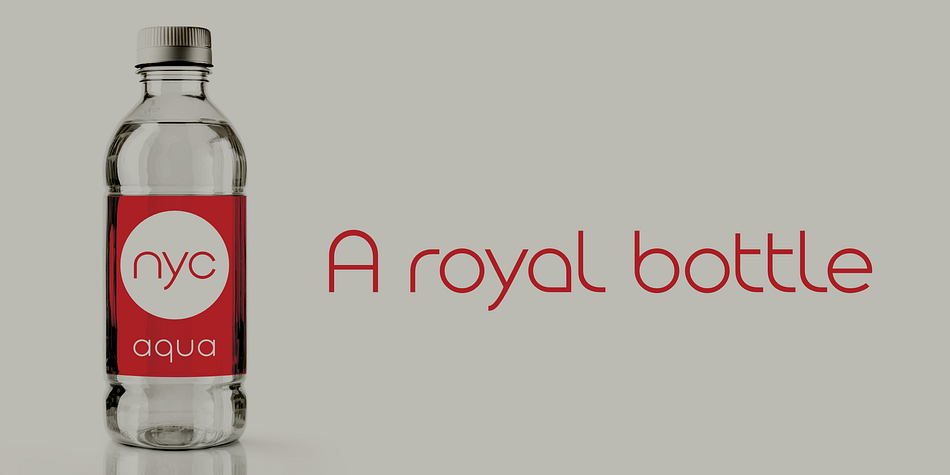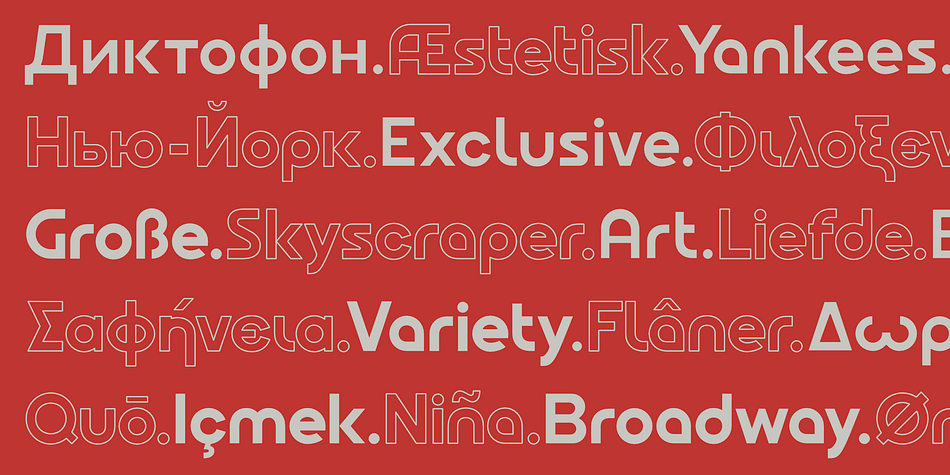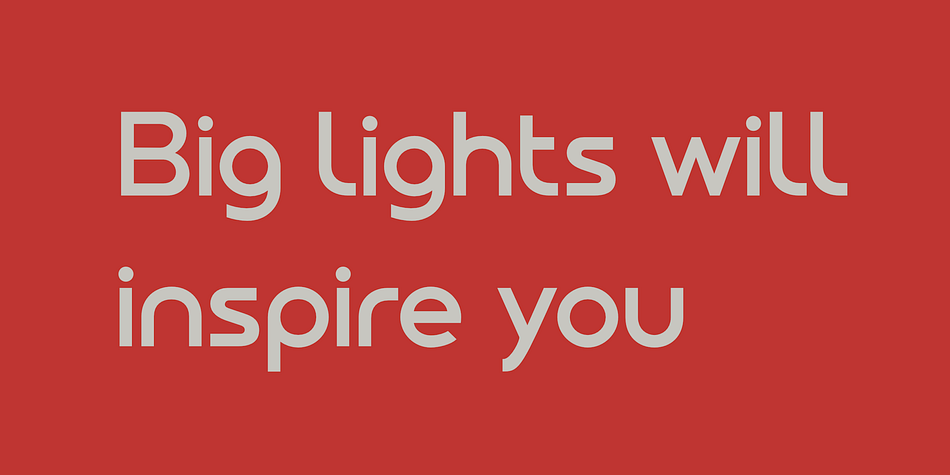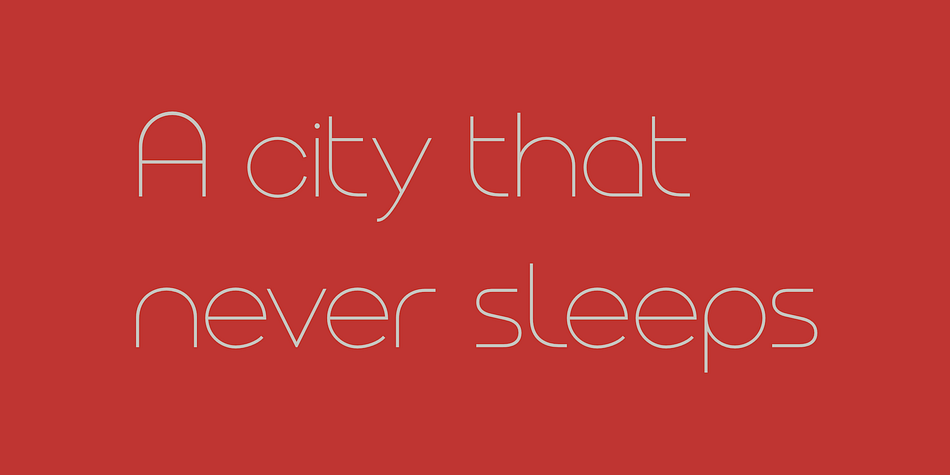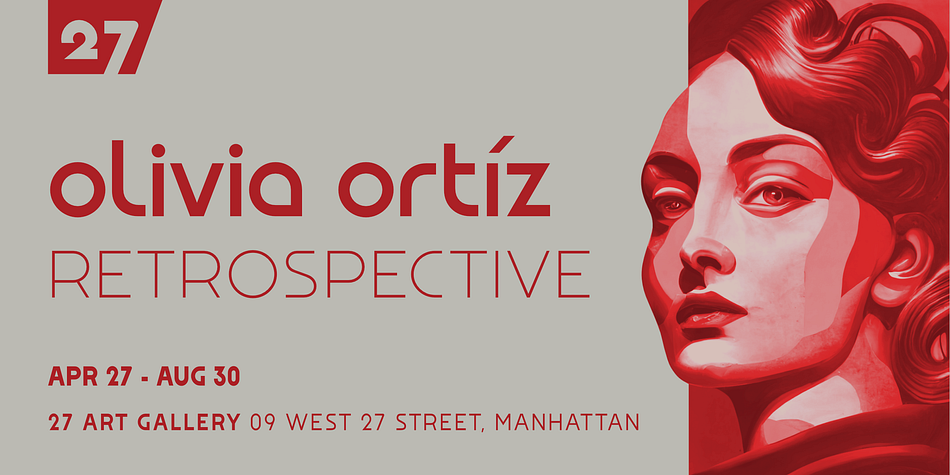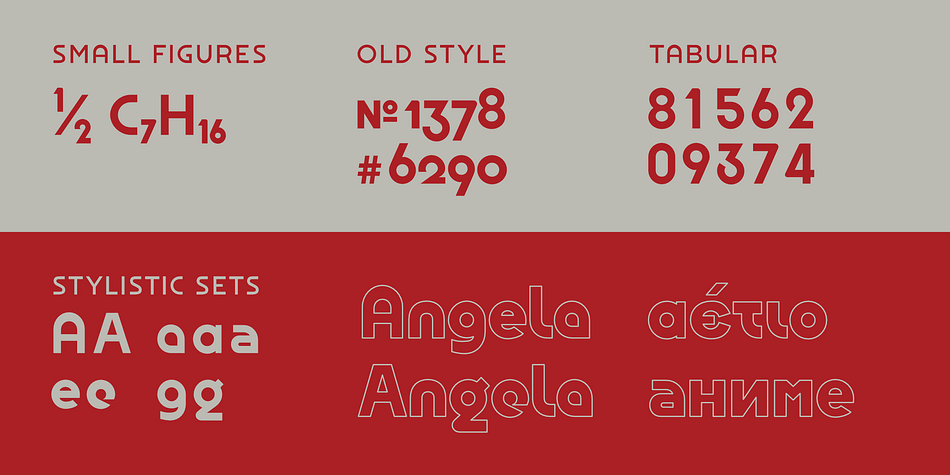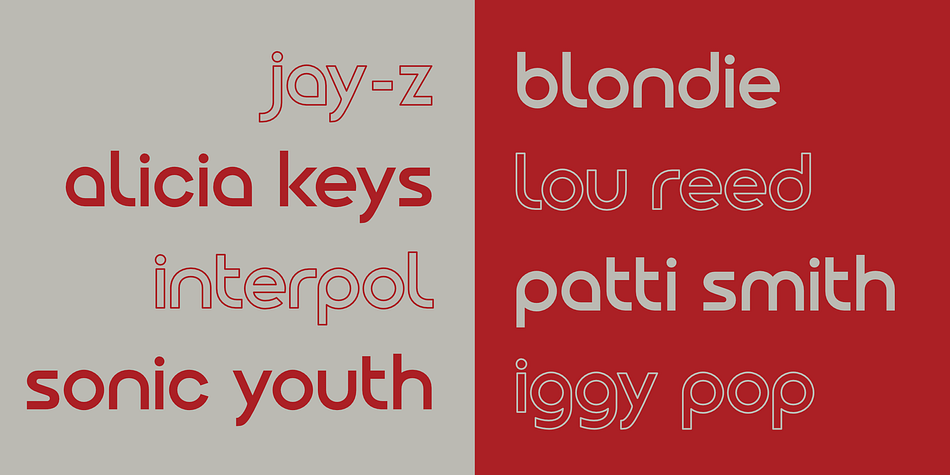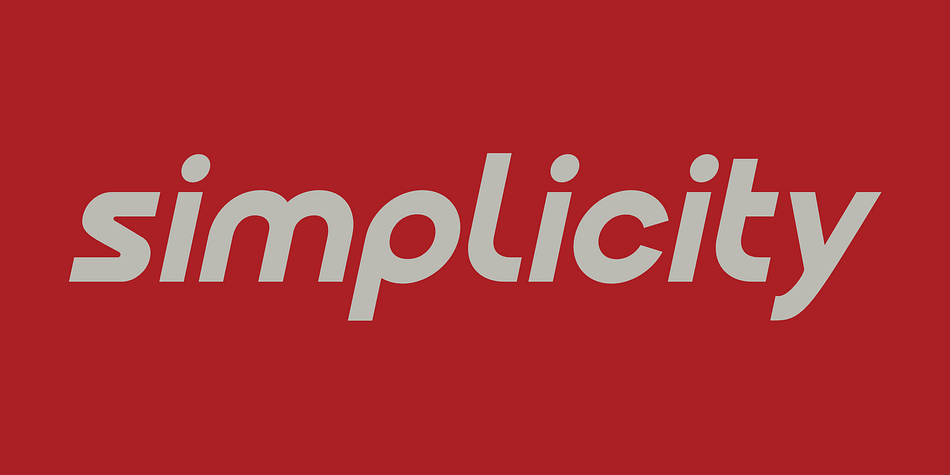
OTC New York
OTC New York is a sans serif font family. This typeface has nineteen styles and was published by OTC.
OTC New York is a geometric sans serif font family with support for Latin, Cyrillic and Greek. The display font comes in 18 styles, 9 weights (including italics) and as a variable font which supports two axis variability: weight and italic. It’s ideal for branding, logos, headlines, editorial design, packaging, web and television use.
The font family is inspired by the Bauhaus school with its simplified geometric form, balanced layout, harmonious geometric shapes that are simple but strong.
OpenType features contain stylistic alternates (for A, a, e & g); old style figures; fraction figures; subscript, superscript, numerator and denominator figure position and tabular figures.